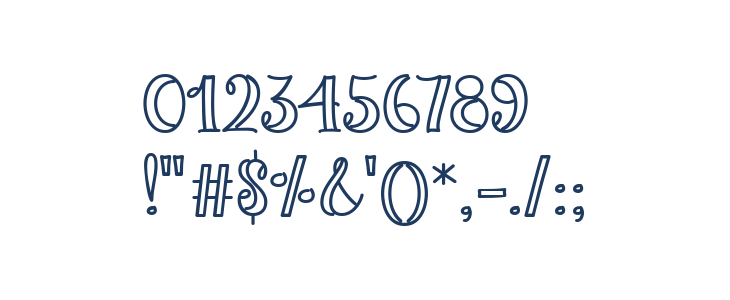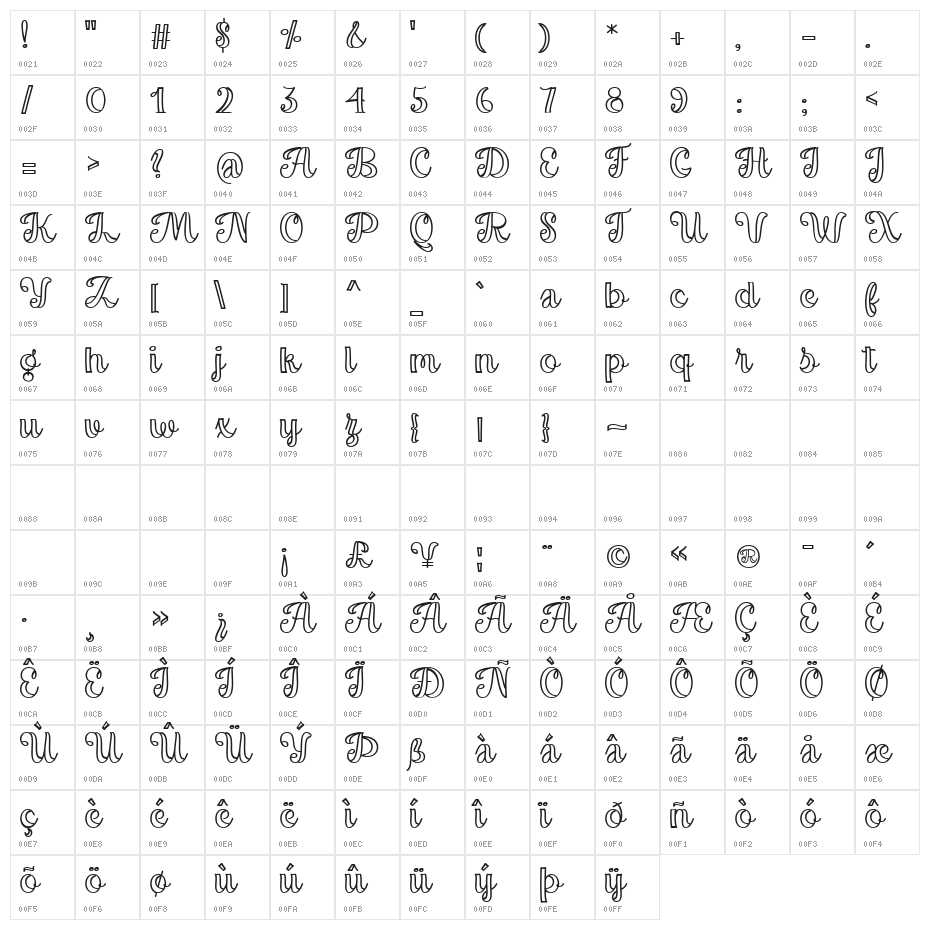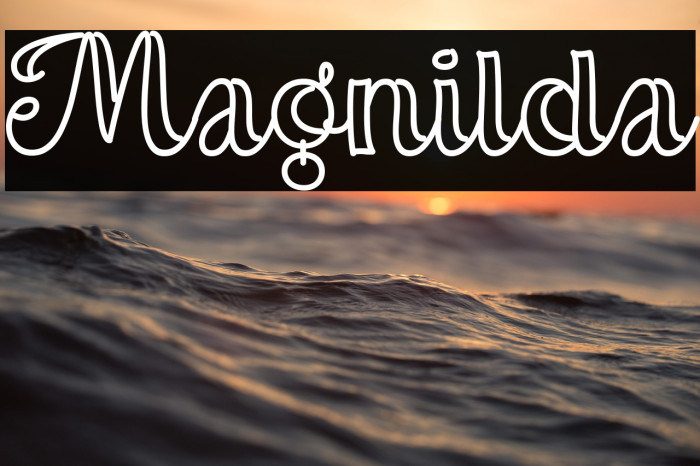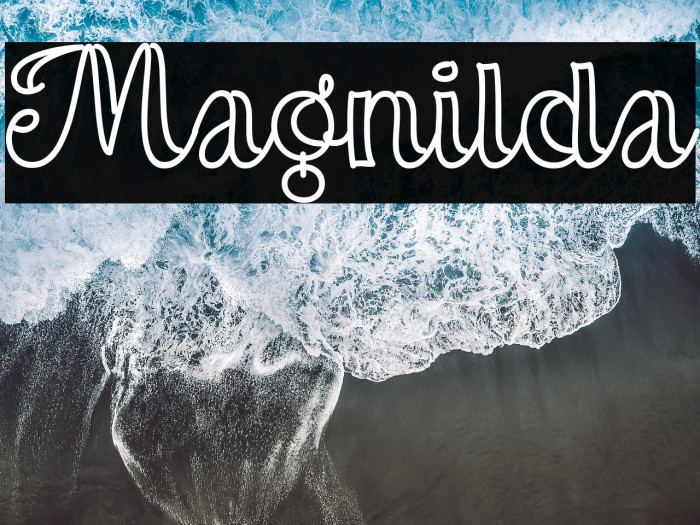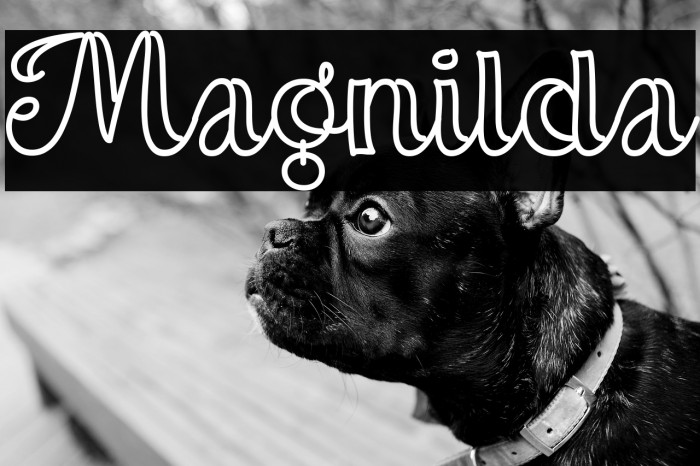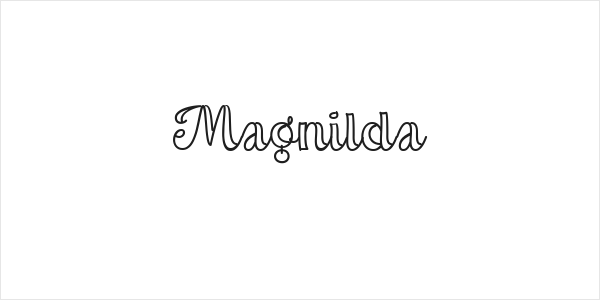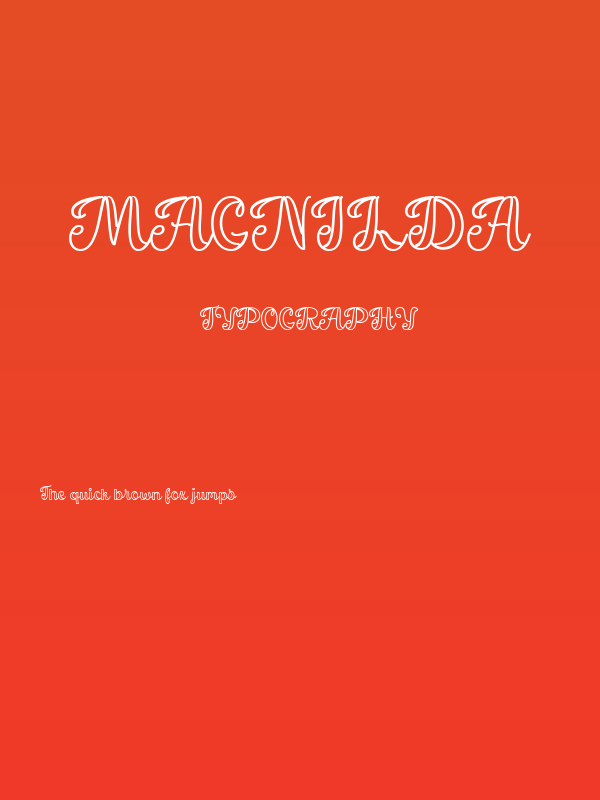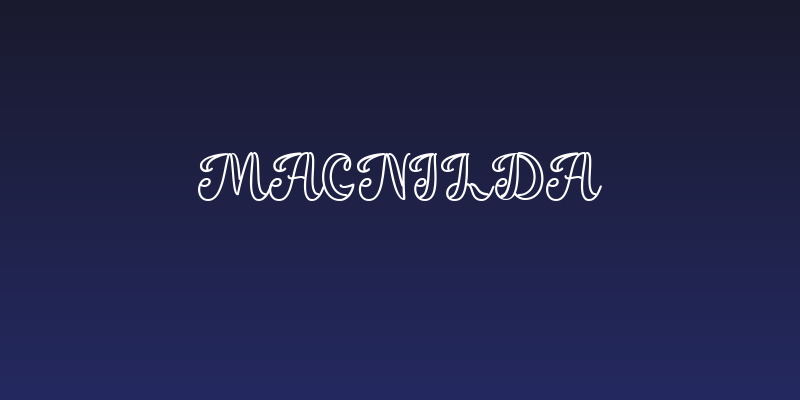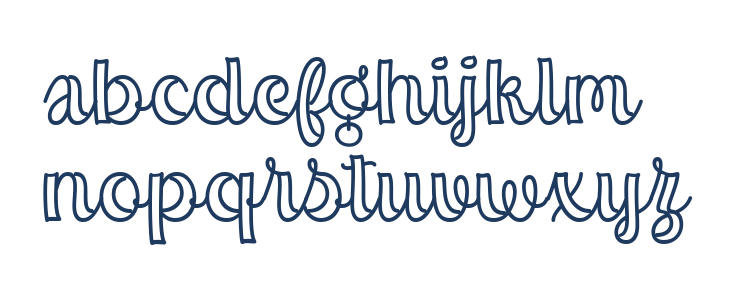
Magnilda Font
Magnilda Description
This font features a playful and decorative script style with a unique blend of elegance and whimsy. The uppercase letters are characterized by their flowing, interconnected lines, creating a sense of movement and fluidity. The lowercase letters maintain a consistent style, with rounded edges and a slightly informal feel. Numbers and special characters are designed to match the overall aesthetic, ensuring a cohesive look across all text. The font's intricate design makes it stand out, ideal for creative projects that require a touch of personality and flair.
| Use Case | Logos, Invitations, Greeting Cards |
| Proposed Projects | Ideal for invitations, greeting cards, branding, and creative design projects. |